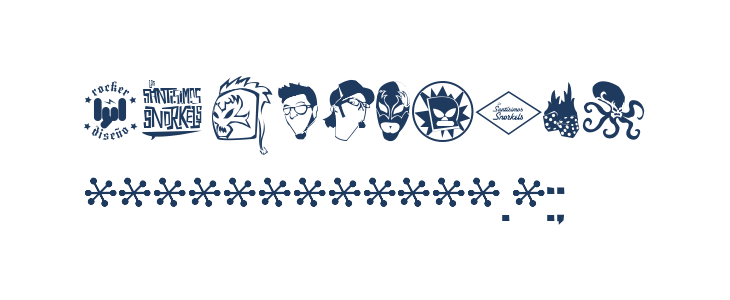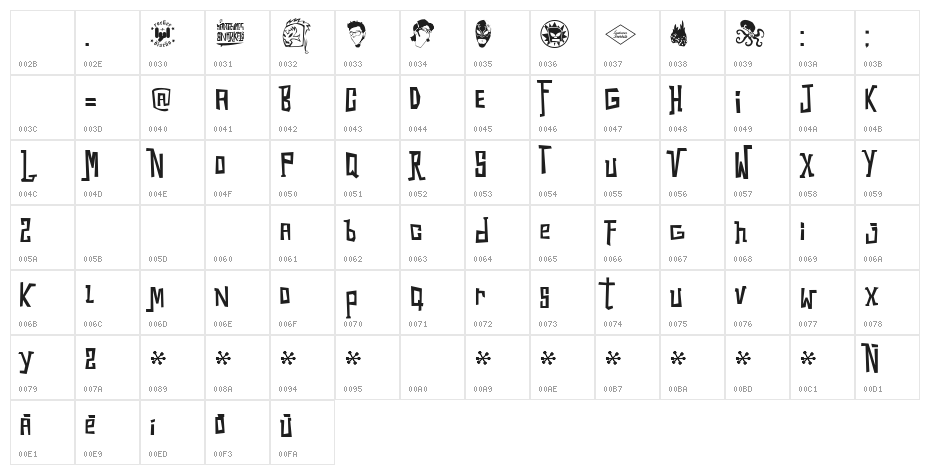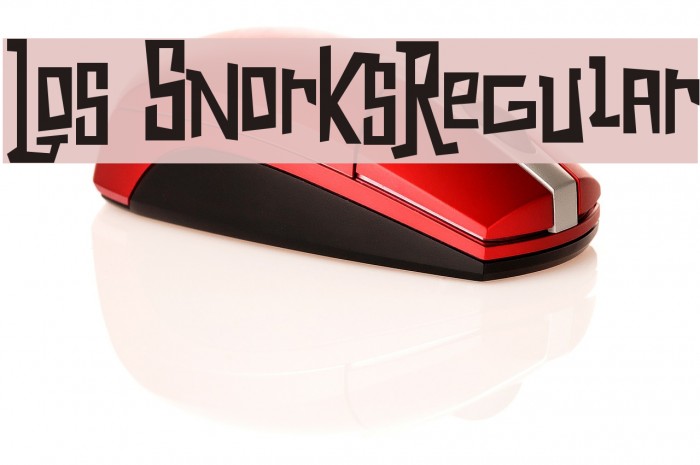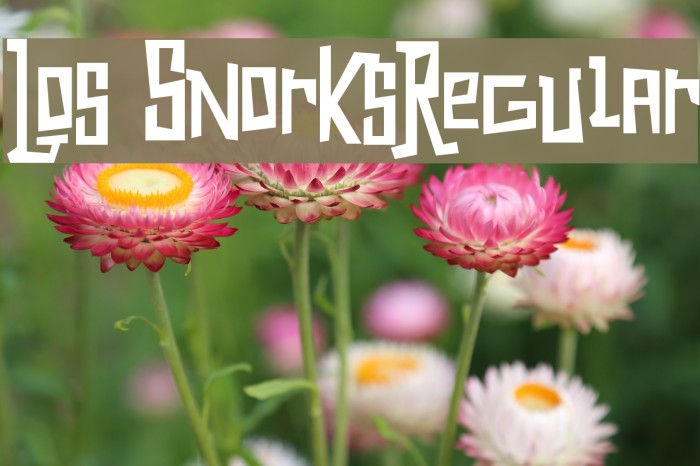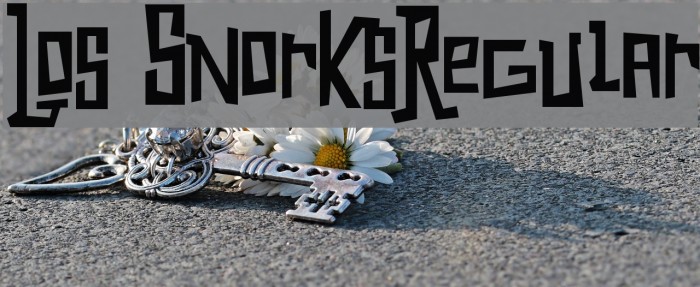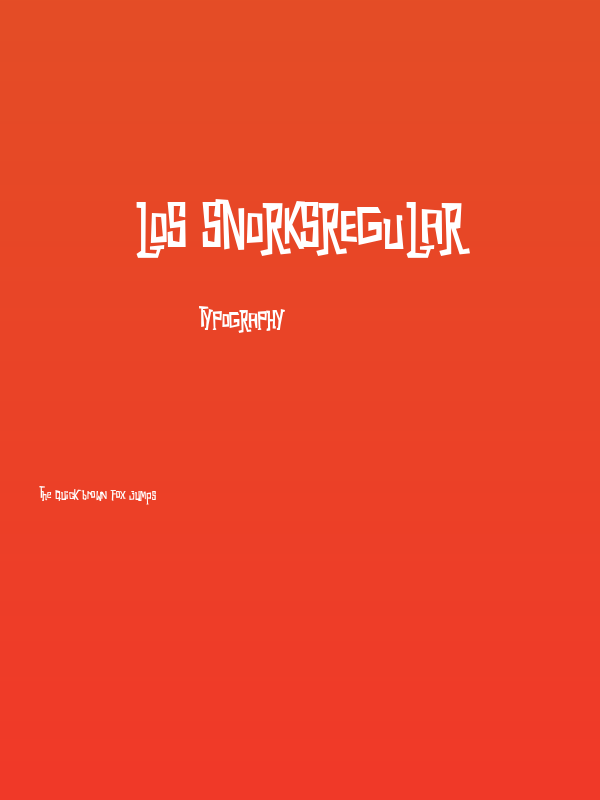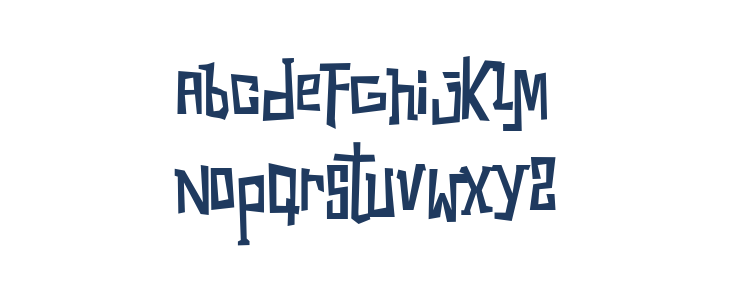
Los SnorksRegular Font
Los SnorksRegular Description
This font features a bold and dynamic style with sharp, angular edges and a slightly condensed appearance. The uppercase letters are tall and commanding, while the lowercase letters maintain a consistent style with a playful twist. The numbers and special characters follow the same bold and edgy design, making the font suitable for attention-grabbing applications. The overall aesthetic is reminiscent of a modern, urban graffiti style, with a touch of rebellious flair. The characters are tightly spaced, enhancing the compact and impactful look of the text.
| Width | Condensed |
| Overall Style | Modern, Urban, Edgy |